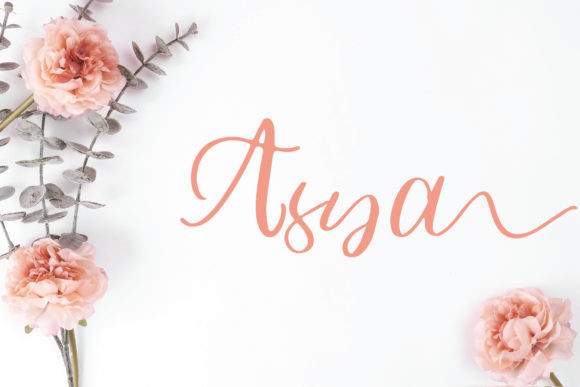
Asya Font
Asya is a gorgeous and elegant script font that delivers an incredibly charming font experience. This script will allow you to create a wide variety of designs, ranging from titles and headlines to logos or posters. Fall in love with its romantic appeal!